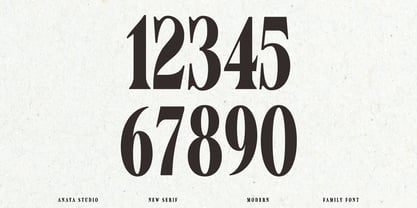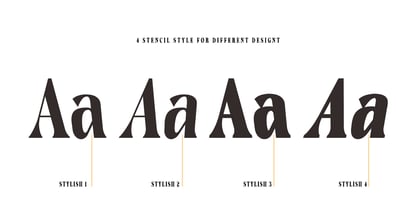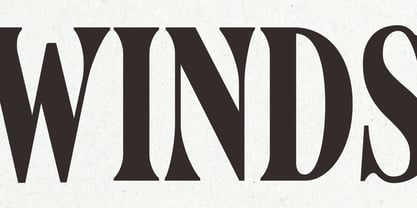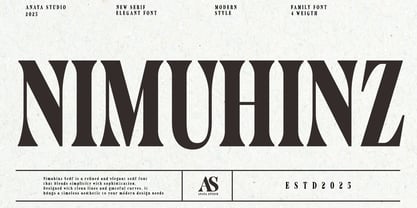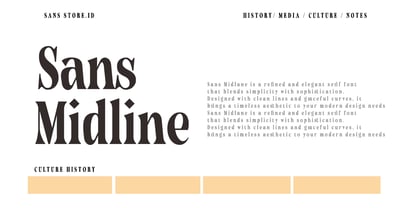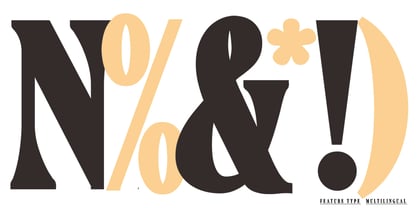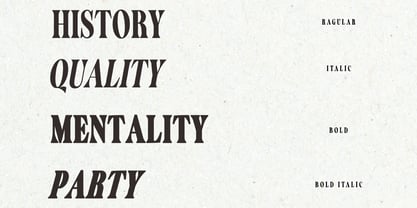
Nimuhinz
par Anaya Studio
La famille de polices Nimuhinz a été conçue par Julizar Ismail et publiée par Anaya Studio. Nimuhinz contient 4 styles et options de package familial.
NIMUHINZ – Modern Elegant Serif Typeface
NIMUHINZ is a bold and refined serif typeface that perfectly balances classic elegance with a modern edge. Crafted with sharp lines and graceful curves, it delivers a sophisticated look that stands out in any design.
With 4 stylish weights, NIMUHINZ offers versatility for a wide range of design needs—from high-end branding, fashion editorials, and logo designs to elegant book covers and minimalist packaging. Its timeless aesthetic and clean structure make it a go-to choice for designers seeking both beauty and functionality.
Make your design unforgettable with the bold charm of NIMUHINZ.